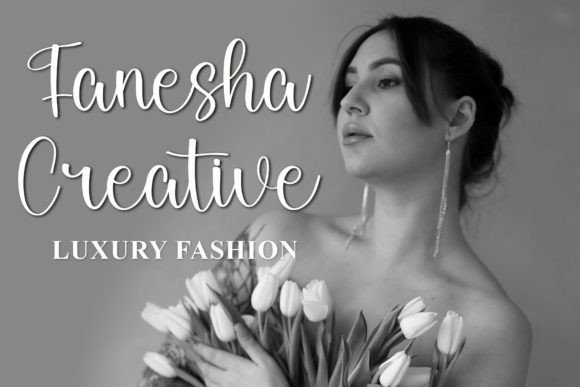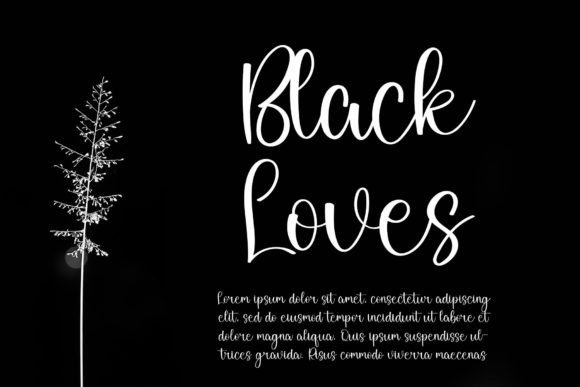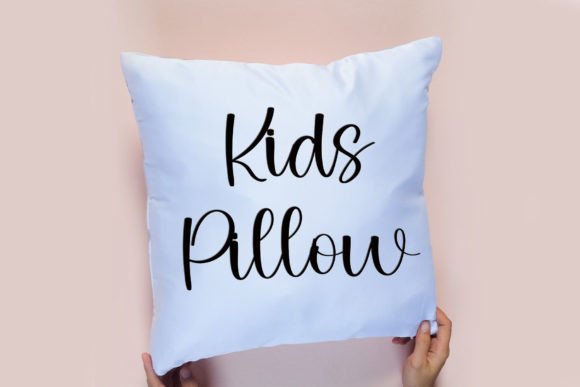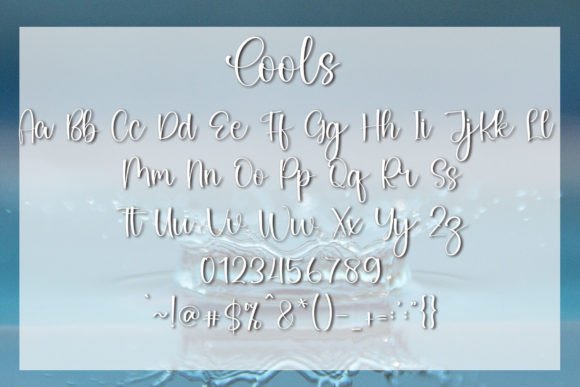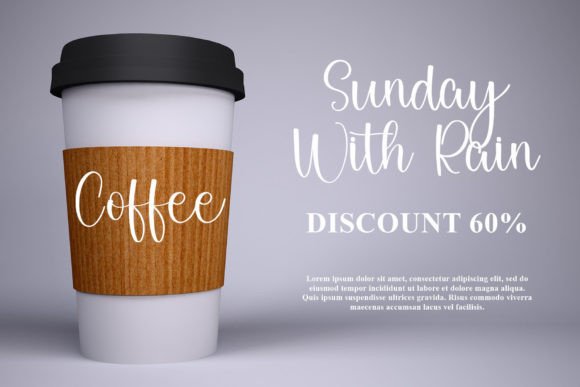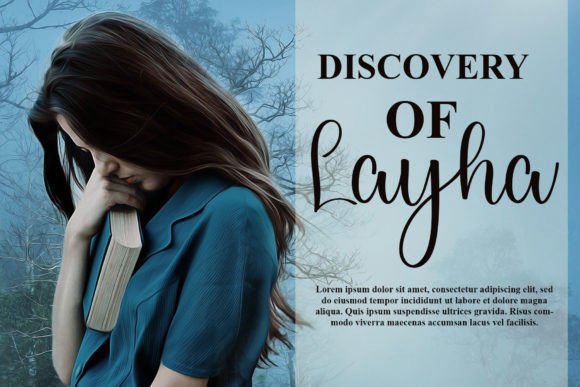
The Designer’s Delight: Cools Font
I still remember the frustration of working on a project, pouring my heart and soul into every detail, only to be held back by one thing: the font. It was a client request for a stylish, handwritten font that exuded a sense of timeless elegance. I scoured the internet, tried countless fonts, but nothing seemed quite right. That was until I stumbled upon Cools Font. ✨
Cools Font is a game-changer. Here’s what I love about it:
- ✅ Stylish and Contemporary: Cools Font has a modern atmosphere that’s hard to find in handwritten fonts. It’s perfect for designers looking to add a touch of sophistication to their projects.
- ✅ Impeccable Form: The font’s classic calligraphy inspiration shines through in its balanced and varied letterforms.
- ✅ Versatile: Cools Font can be used for a wide range of projects, from branding and advertising to packaging and digital media.
Of course, no font is perfect. Here are a few quirks to keep in mind:
- ⚠️ Limited Multilingual Support: Cools Font may not support all languages, so be sure to check the character set before using it for a multilingual project.
- 🤔 Some Ligatures May Not Display Correctly: As with any font, some ligatures may not display correctly in certain applications or platforms.
The Story Behind Cools Font
Cools Font was designed with the goal of creating a stylish, handwritten font that captures the essence of timeless classic calligraphy. The designer, inspired by the works of renowned calligraphers, aimed to create a font that’s both balanced and varied. The result is a font that’s perfect for designers looking to add a touch of elegance to their projects.
| Font Name | Cools Font |
| What is Cools Font? | Cools Font is a stylish handwritten font with a contemporary atmosphere and impeccable form, inspired by timeless classic calligraphy. |